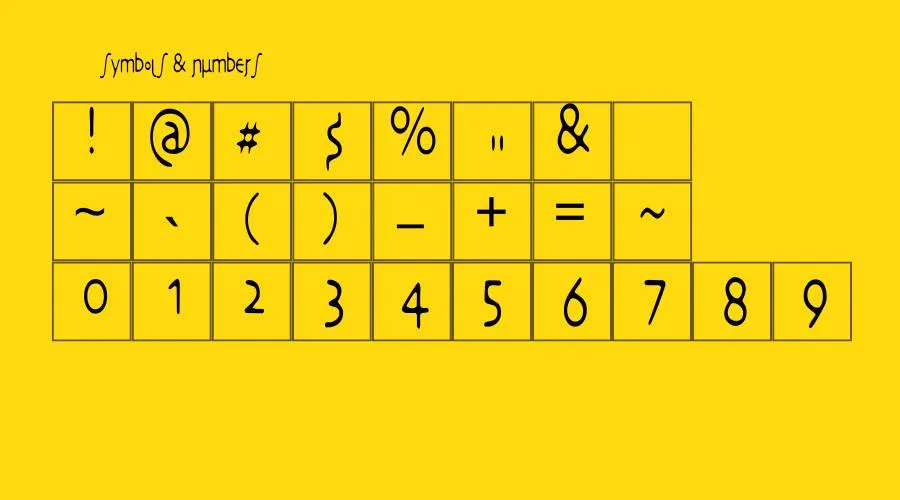
Desert Crypt Font
About Desert Crypt Font
In this article, we shall present to you a new stylish and cartoonish shape texture called Desert Crypt Font. The subfamily of this typeface is Oblique and contains different types of styles and weights such as bold, italic, and regular.
You can utilize this stunning and stylish typeface in different projects like layouts, homeware designs, business cards, wedding cards, titles, t-shirt designs, invitation cards, fabric designs, logos, magazines, books cover pages, text, and so on.
This stunning typeface is mostly used in different advertisements, fabric printing newspapers, social media posters, branding, labeling, web development graphic designs,  and business projects.
Moreover, it will give a useful effect on display designs, documentation, article writing, content, report cards, assignments,  and many more. It has a great effect on social media posts and even you can use it in making YouTube thumbnails.
Style Cartoon
What kind of font is Desert Crypt Font?